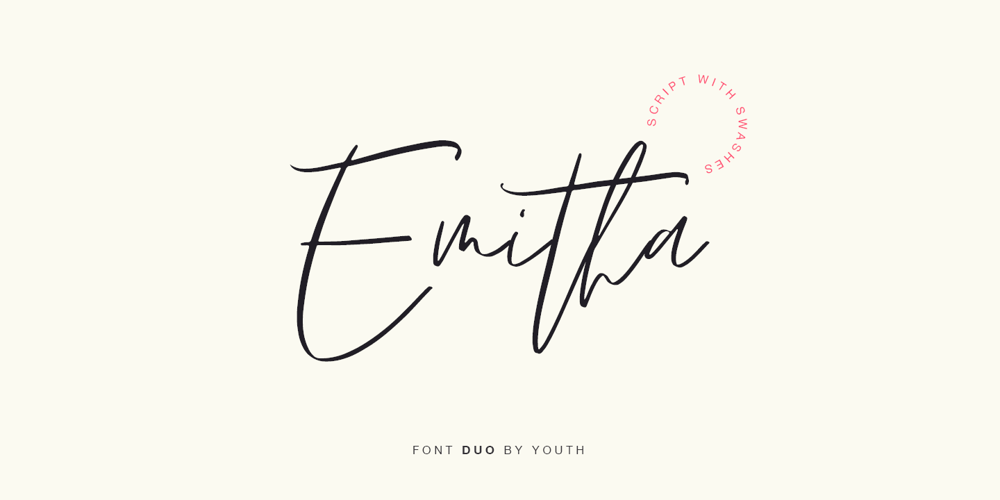
Emitha
Emitha font
Emitha Font Family was designed by Dmitrii Chirkov and published by Supfonts. Emitha contains 2 styles and family package options. Meet my new font Emitha DUO! Emitha includes full set of lovely uppercase and lowercase letters, multilingual symbols, numerals, punctuation and ligatures. Also it includes: large set of Swashes and Strokes. This is so perfect for invitations, monograms etc Check out my blog: www.instagram.com/dmitriychirkov pinterest.com/dmitriychirkov7